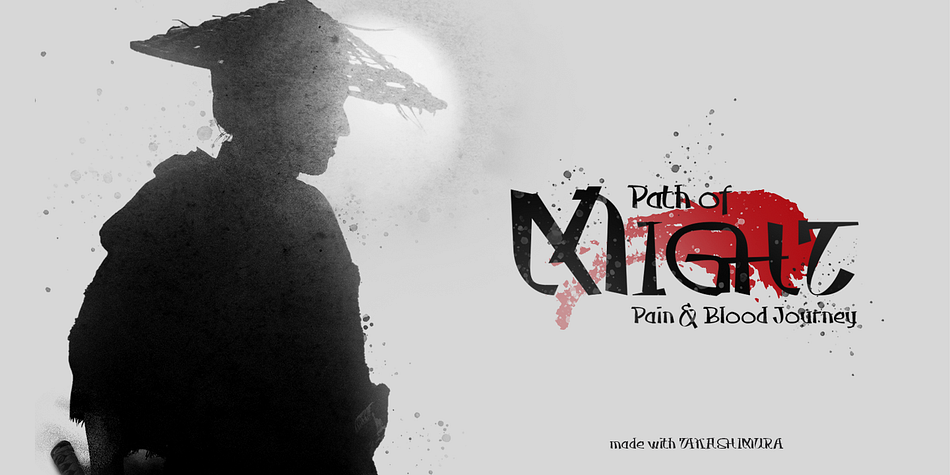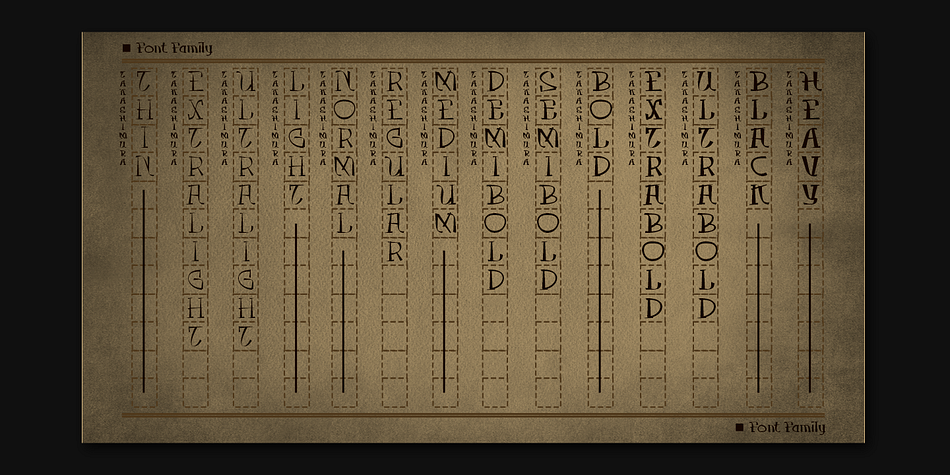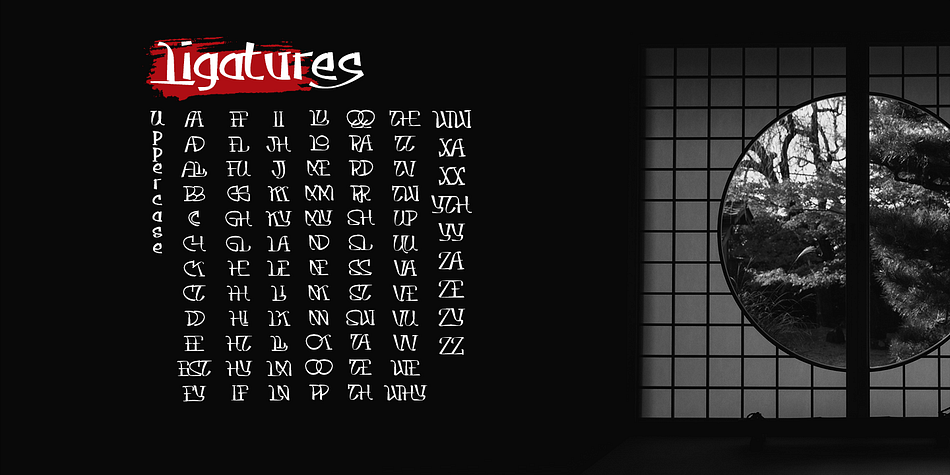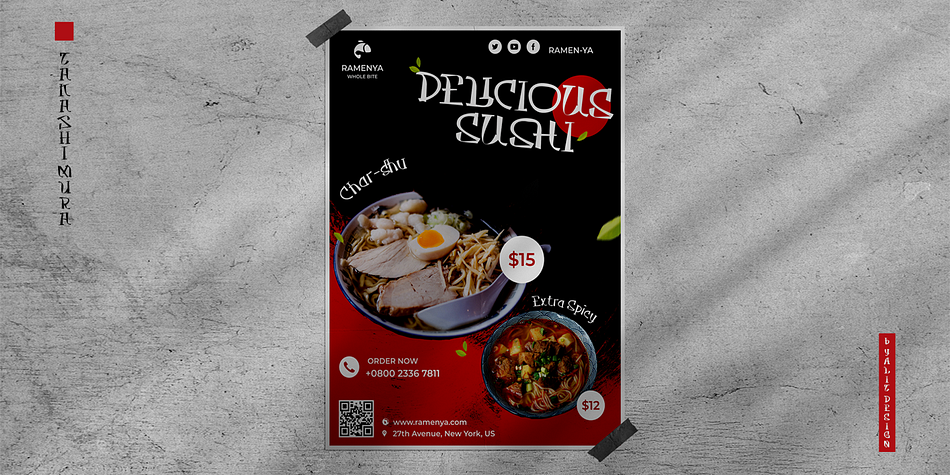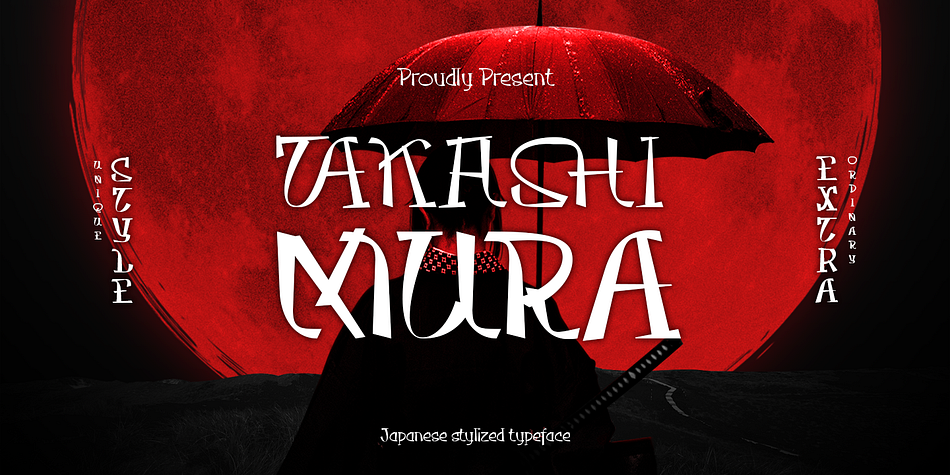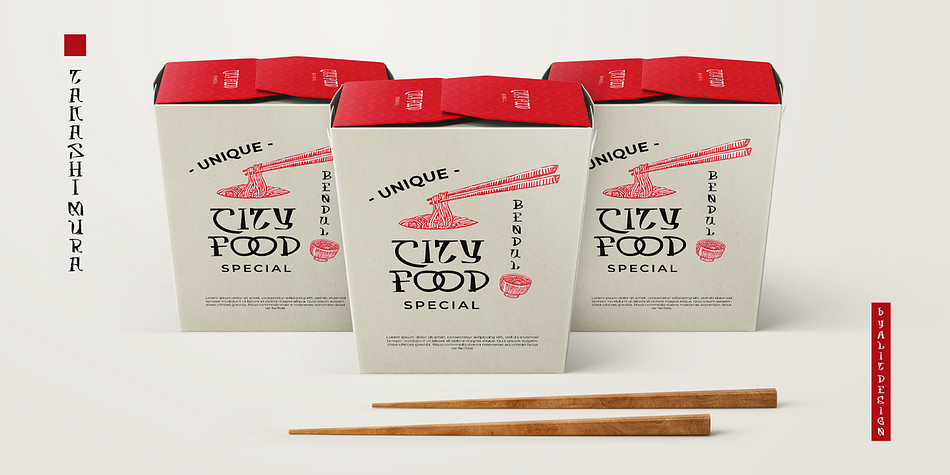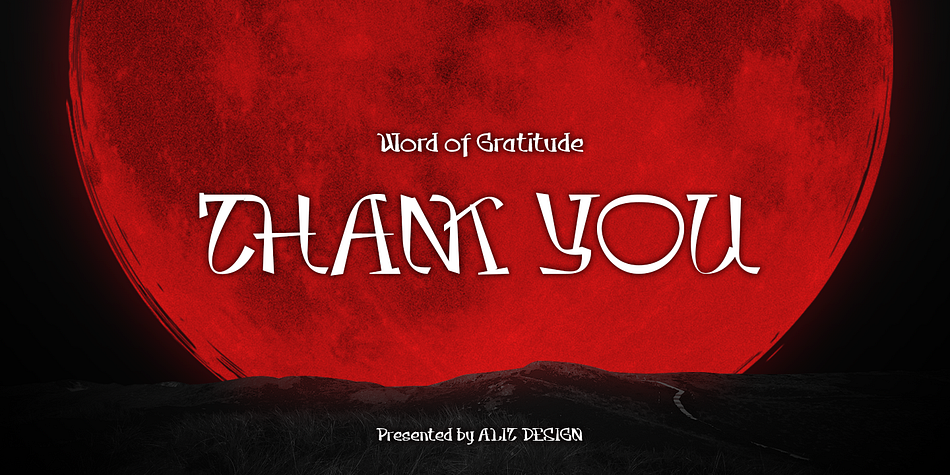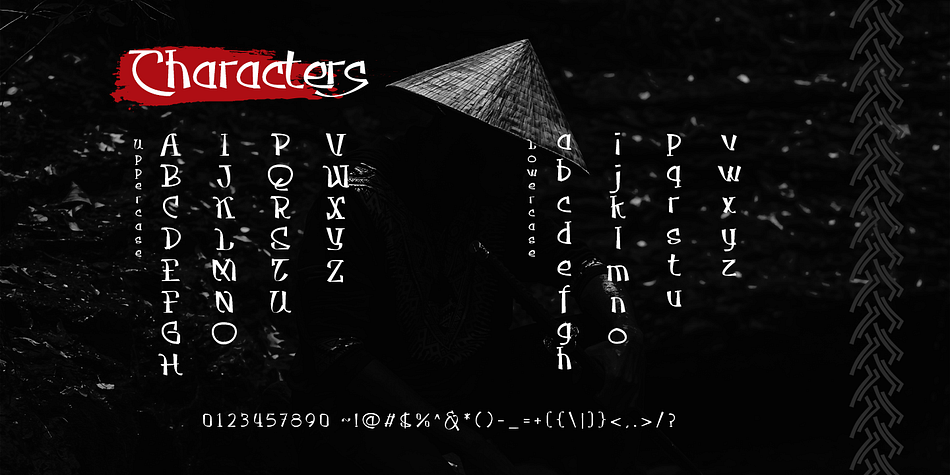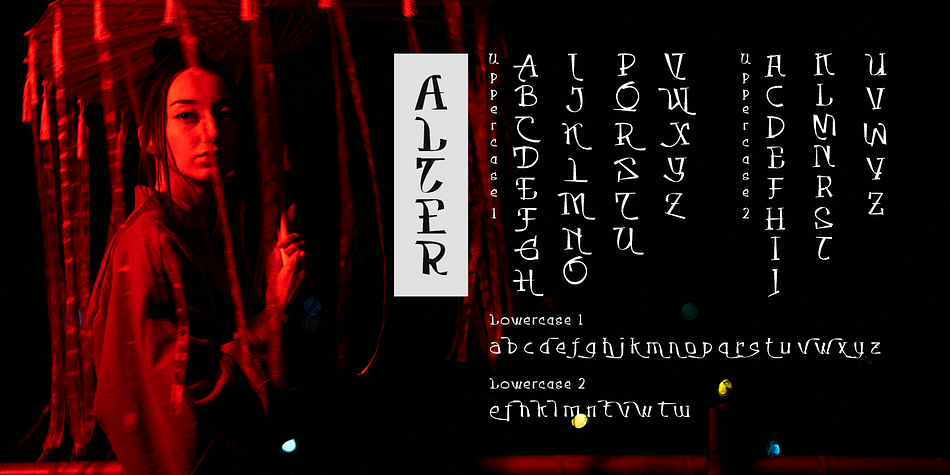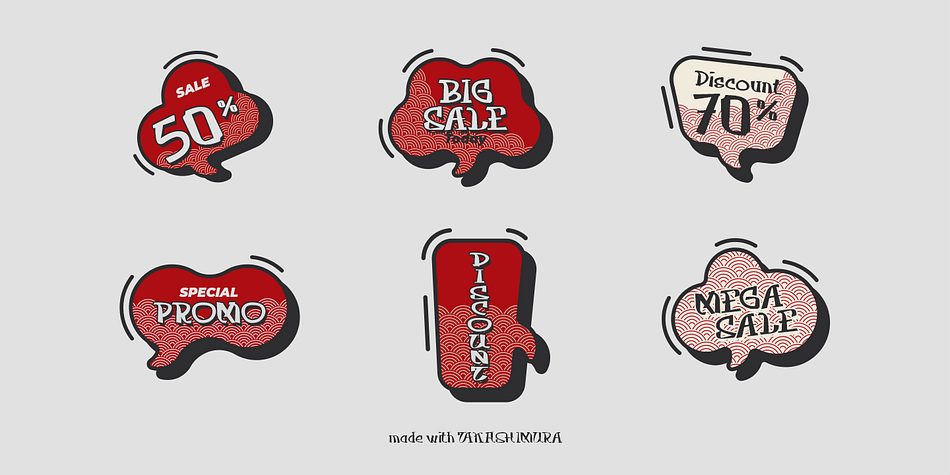
Takashimura
Designed by Alit Suarnegara, Takashimura is a display, exotic and hand display font family. This typeface has fourteen styles and was published by Alit Design.
Introducing Takasimura Typeface
Takasimura was inspired by unique and cool Japanese calligraphy. We created the Takasimura font for a design solution with a Japanese concept but internationally readable. Of course, this font is very suitable for designs with Japanese, Asian and Eastern concepts.